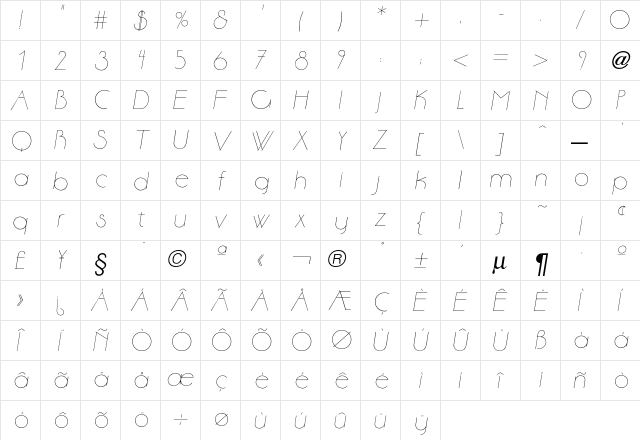
Aase LightItalic
Design Context for Aase Typeface
Aase takes a measured approach to typography — its balanced proportions and neutral character make it a reliable workhorse for both digital and print work. Its italic angle brings a sense of urgency and motion to the letterforms. Its slender proportions lend an understated elegance to any composition.
Pro Tip: Use Aase for emphasis, pull quotes, and subheadings where its slanted energy can add rhythm to the layout.